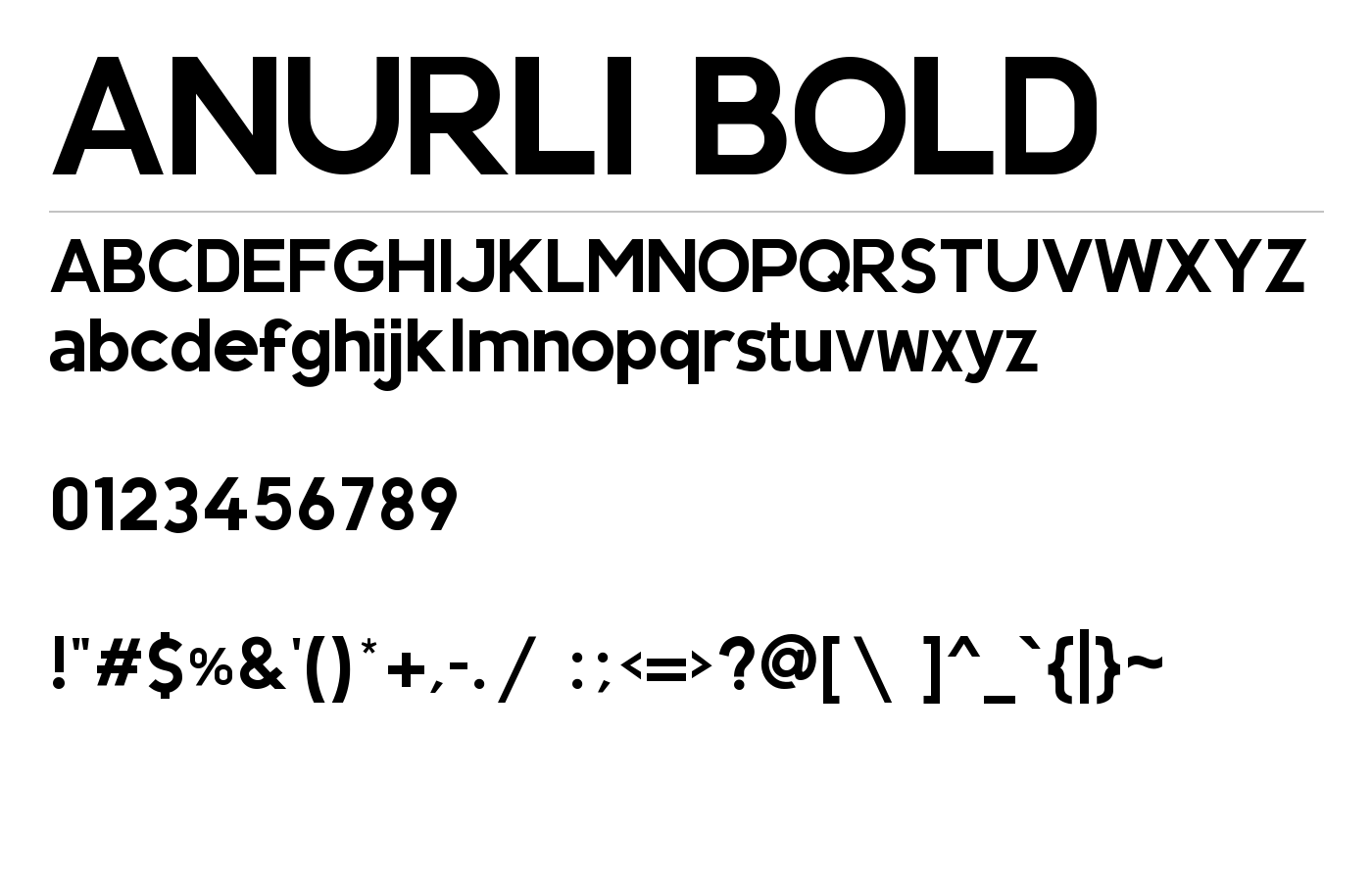
ANURLI BOLD is a modern, bold sans serif font with clean, geometric shapes and a slightly condensed width that gives it a strong, confident presence. Its high x-height and uniform stroke weight make it highly readable and versatile, perfect for striking headlines, branding, and digital interfaces that demand clarity and impact. This font’s contemporary style works especially well for technology, fashion, and editorial designs seeking a bold yet approachable look.
ANURLI BOLD Font